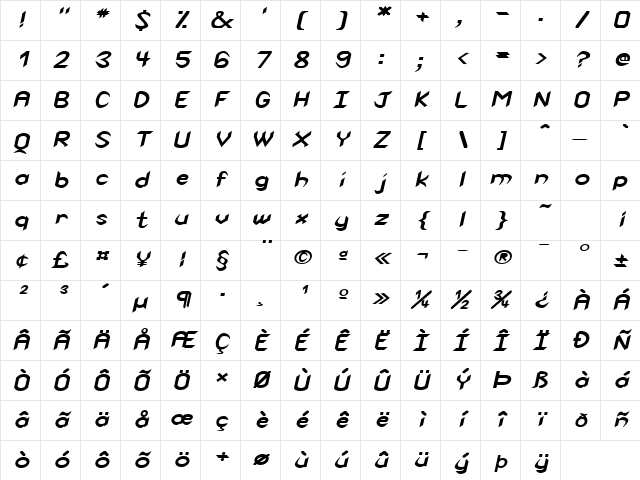
Spike-Extended Bold Italic Free Font
Spike-Extended Bold Italic
Design Context for Spike-Extended
Spike-Extended is a composed and adaptable typeface that performs quietly and consistently across a wide range of design contexts. The slanted form adds forward momentum and visual energy. Its bold stroke weight gives it real presence on the page.
Pro Tip: Use Spike-Extended for emphasis, pull quotes, and subheadings where its slanted energy can add rhythm to the layout.